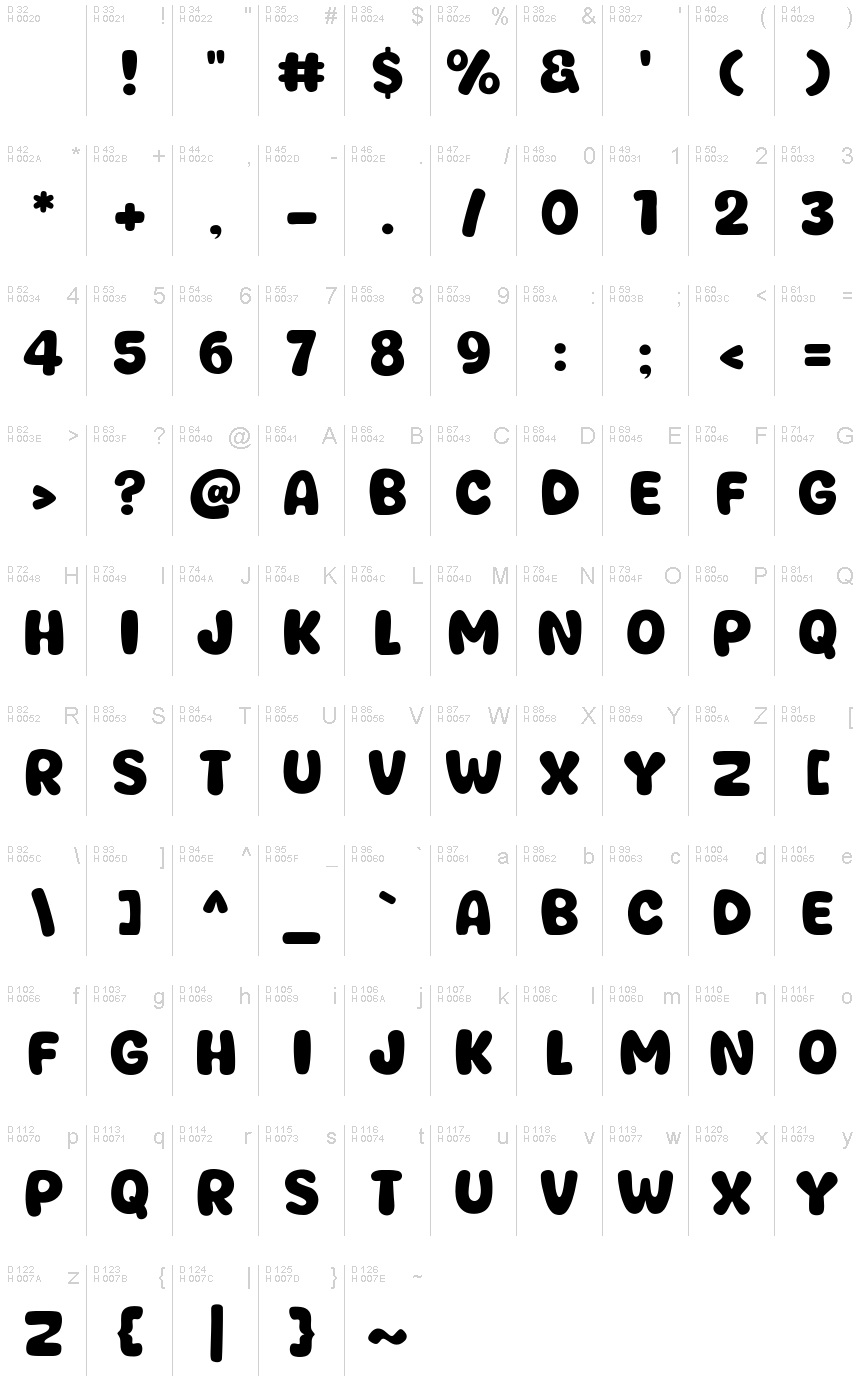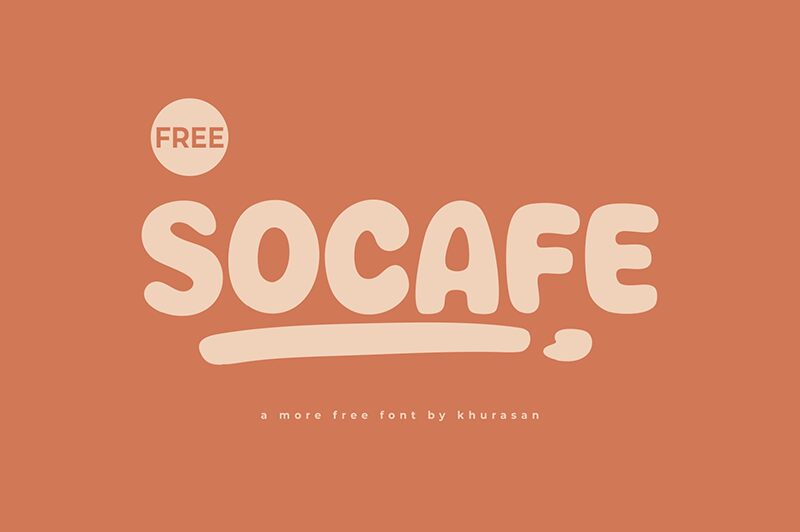
Socafe
Socafe font, crafted by the talented designer Khurasan, is a bold display typeface that exudes a playful cartoon style. Its rounded and exaggerated forms make it stand out, adding a vibrant touch to any project. This eye-catching design invites creativity and fun, perfect for children’s books, playful branding, or eye-popping headlines.
The Socafe font's unique aesthetic brings an inviting warmth to designs that aim to captivate audiences with a cheerful tone. Ideal for designers seeking a whimsical yet professional appeal, this free font offers endless possibilities. Download now to enhance your creative projects with its bold charm and personality!